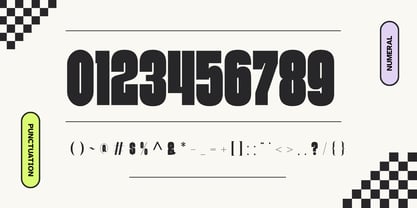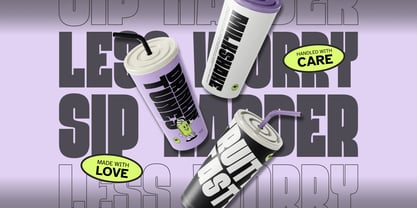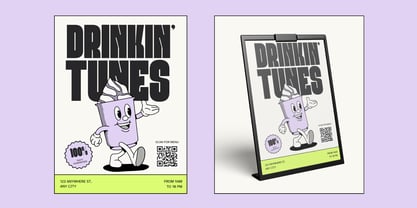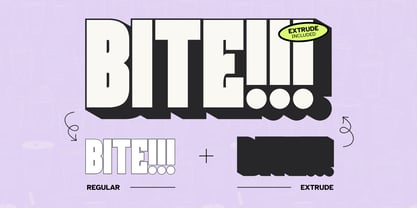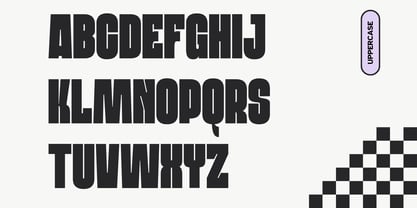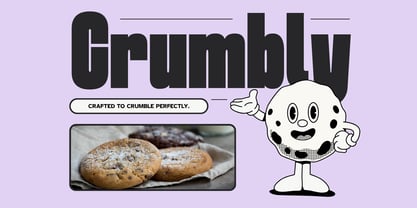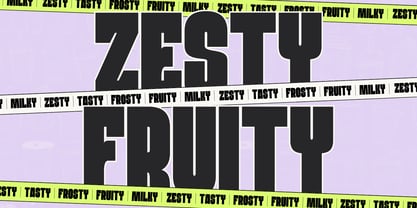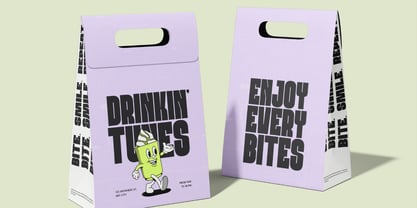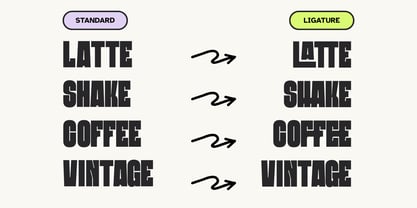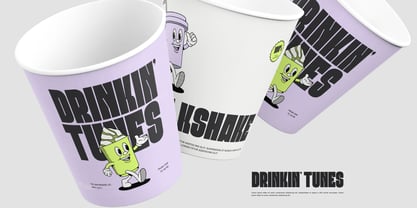
Domar Coffee
by Nirmana Visual
The Domar Coffee Font Family was designed by Sigit Dwipa and published by Nirmana Visual. Domar Coffee contains 2 styles and family package options. More about this family
Domar Coffee is a bold and stylish sans-serif font inspired by the warmth and energy of your favorite café. Designed for food, beverage, and branding projects, it captures a friendly and modern vibe that feels both cozy and professional. With Regular and Extrude styles, Domar Coffee brings depth and personality to menus, packaging, logos, and social media designs. Its clean letterforms and confident weight make every word look deliciously inviting — just like your first sip of morning coffee.